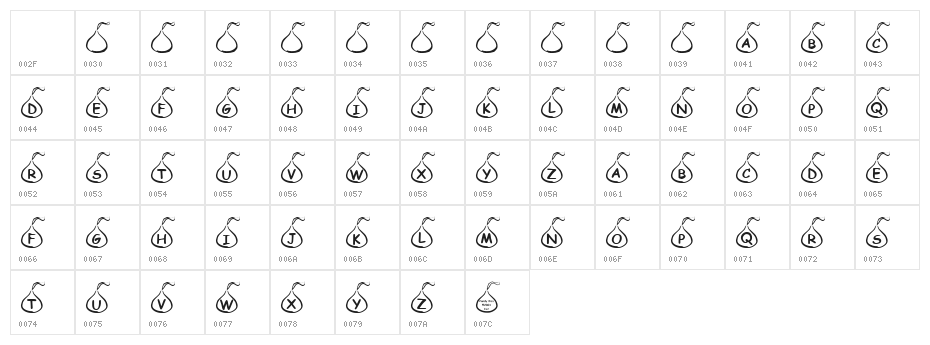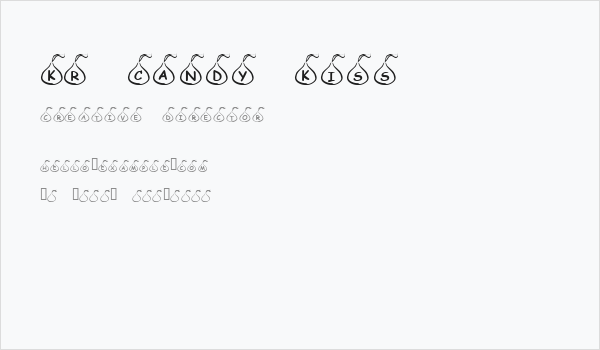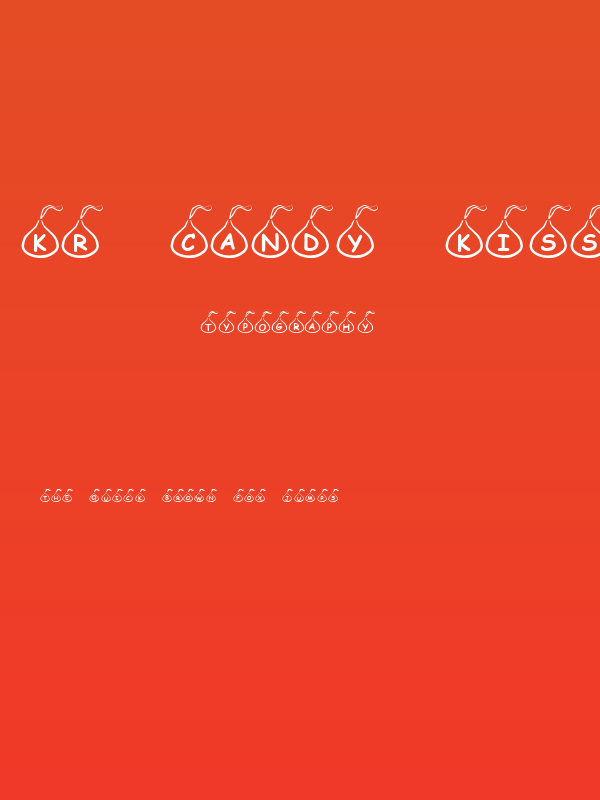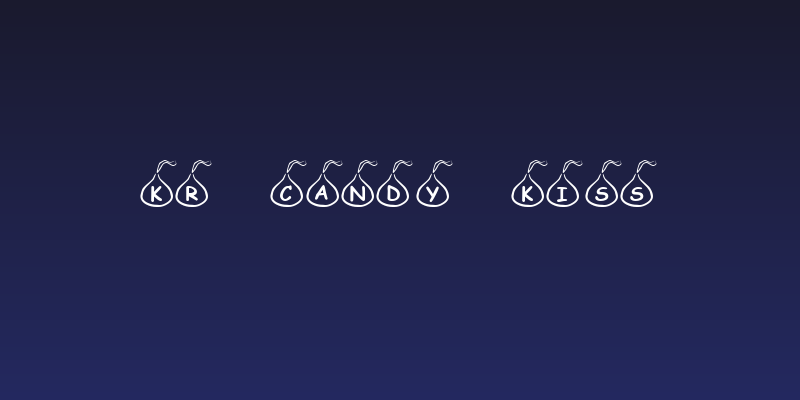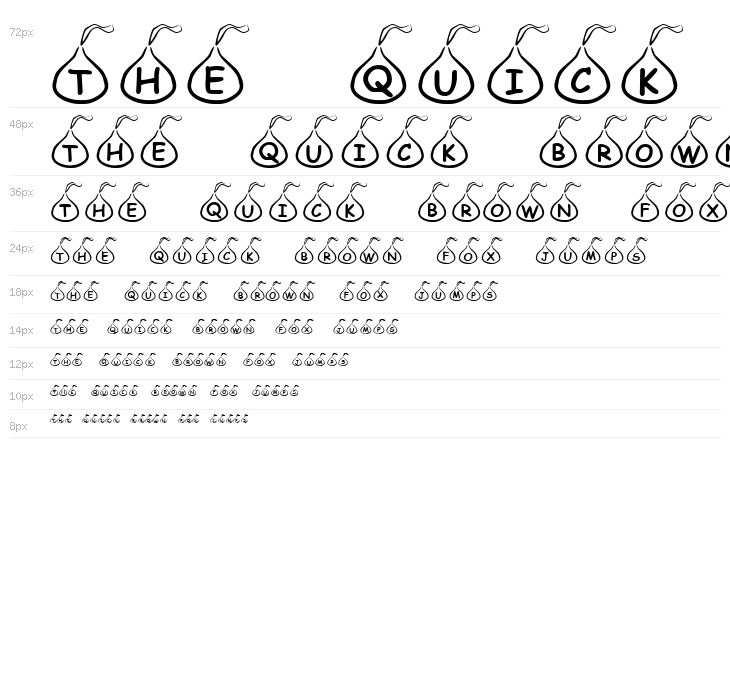
KR Candy Kiss Font
KR Candy Kiss Description
This playful and decorative font features characters enclosed within a candy-shaped outline, reminiscent of a classic chocolate drop. Each letter is bold and rounded, providing a whimsical and fun aesthetic. The design is consistent across both uppercase and lowercase letters, maintaining a uniform appearance. The font lacks numerals and special characters, focusing solely on the alphabet. Its unique style makes it ideal for projects that require a touch of sweetness and charm, such as children's party invitations, candy shop branding, or playful greeting cards.
| Use Case | Logos, Headlines |
| Proposed Projects | Ideal for children's party invitations, candy shop branding, or playful greeting cards. |